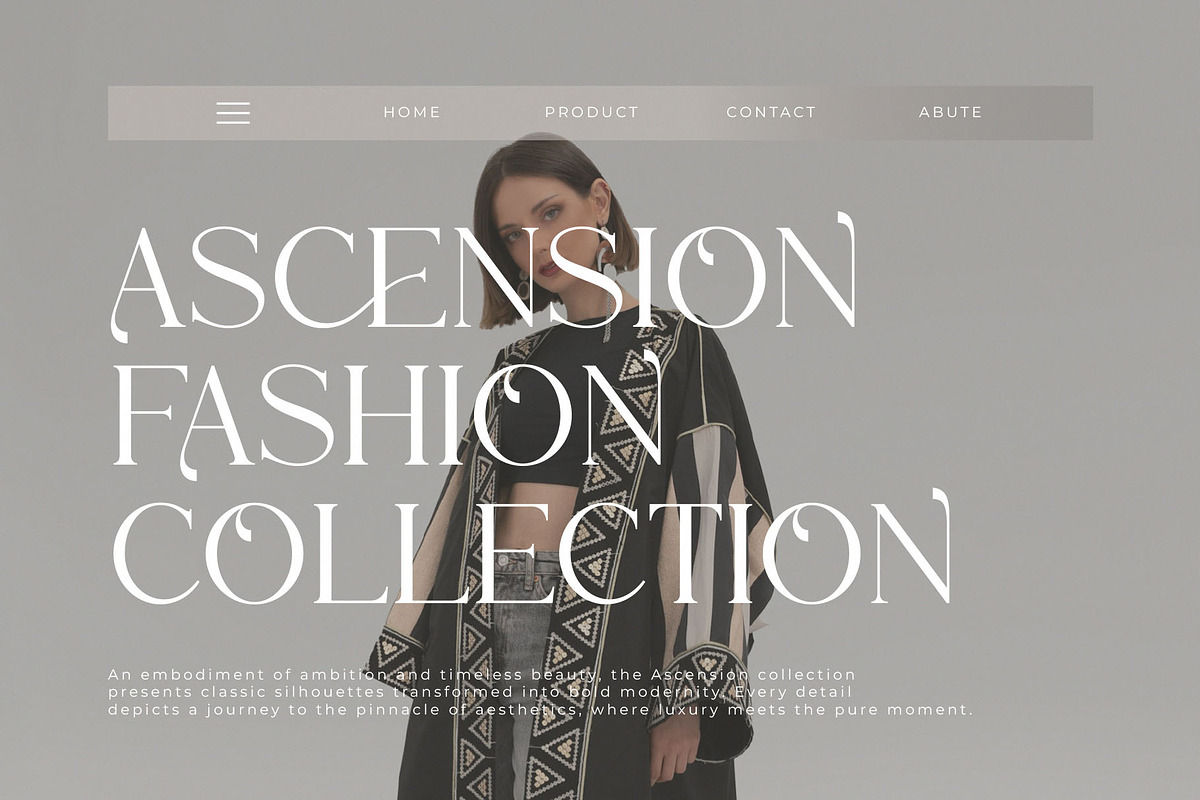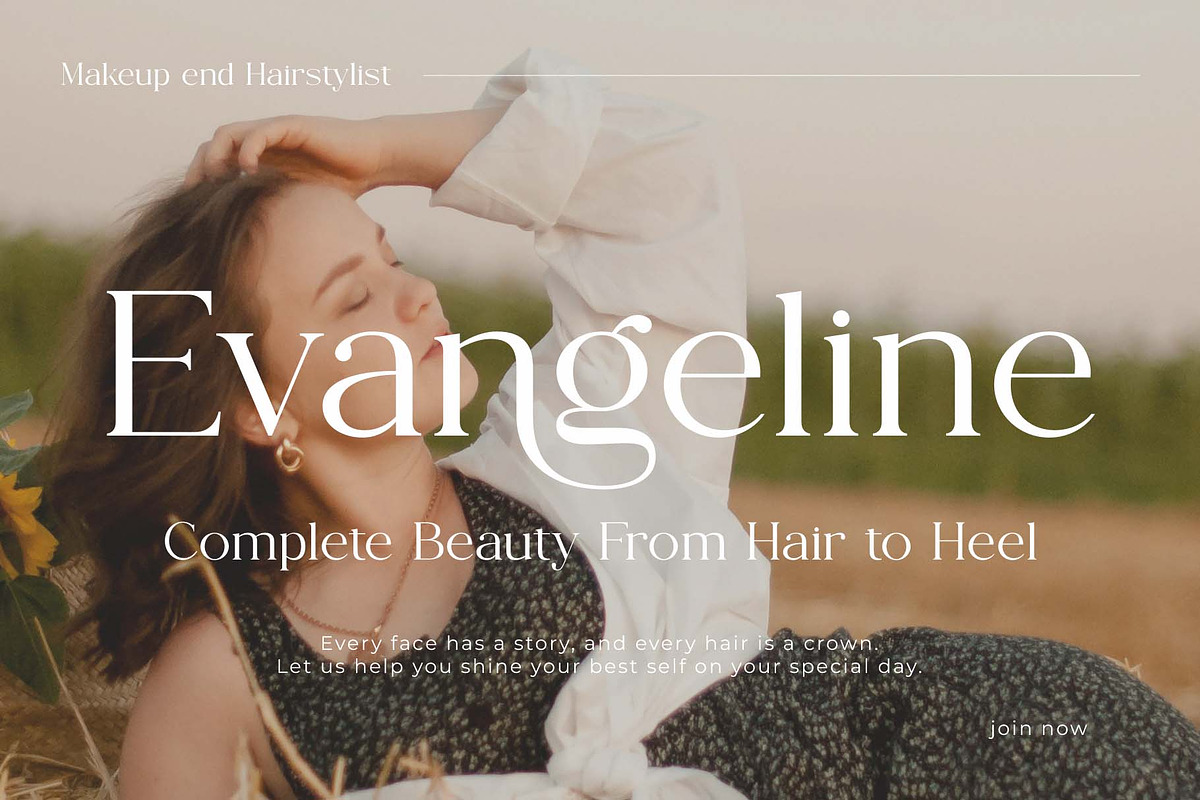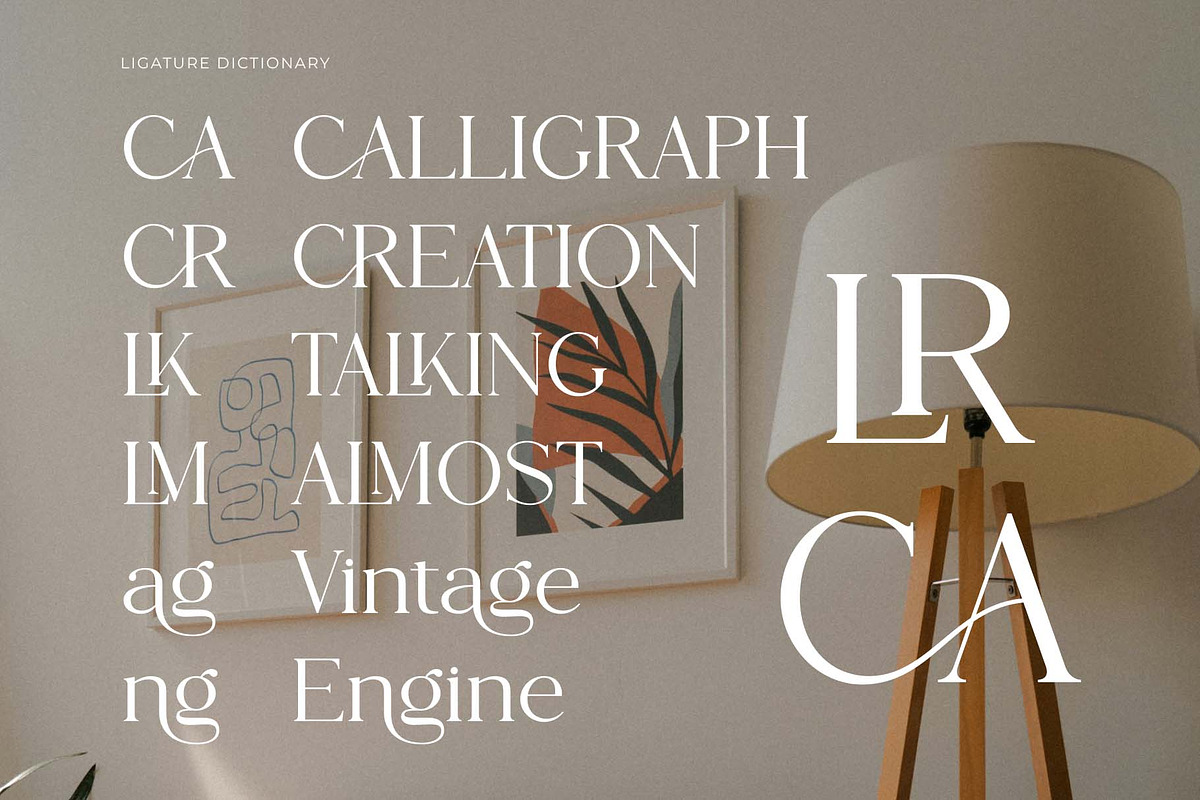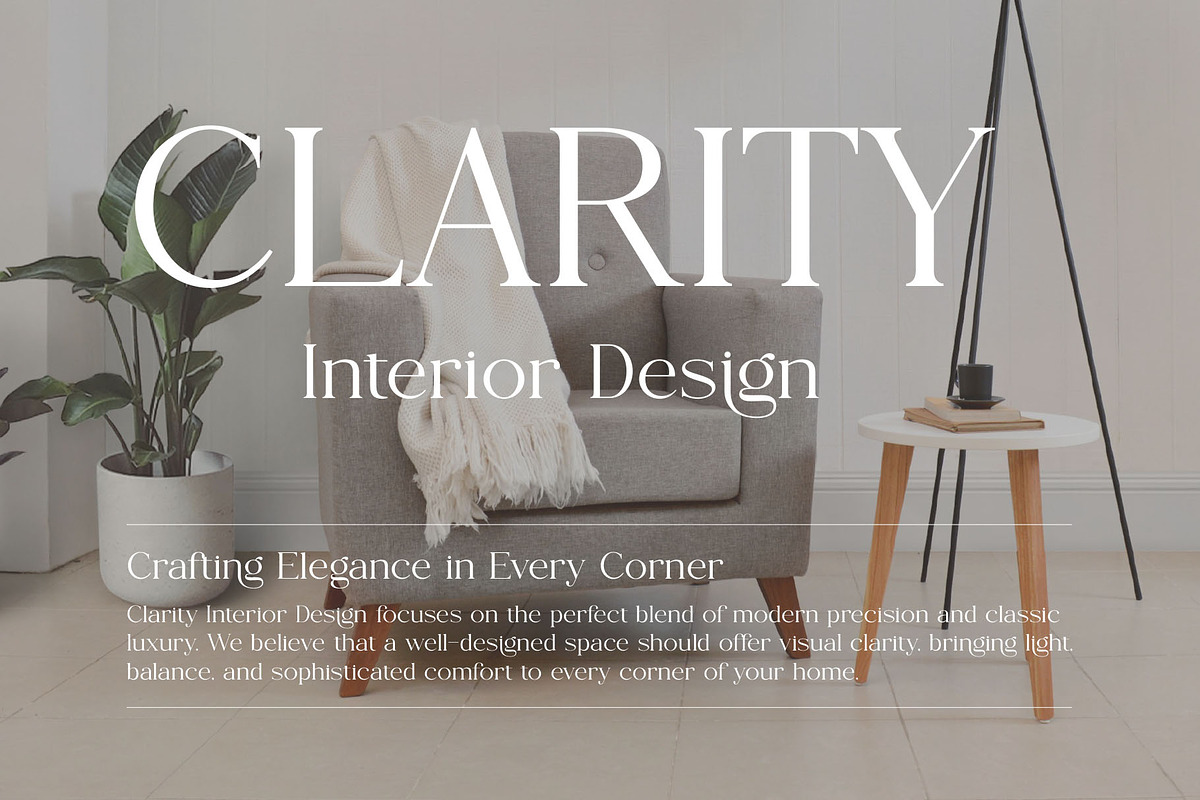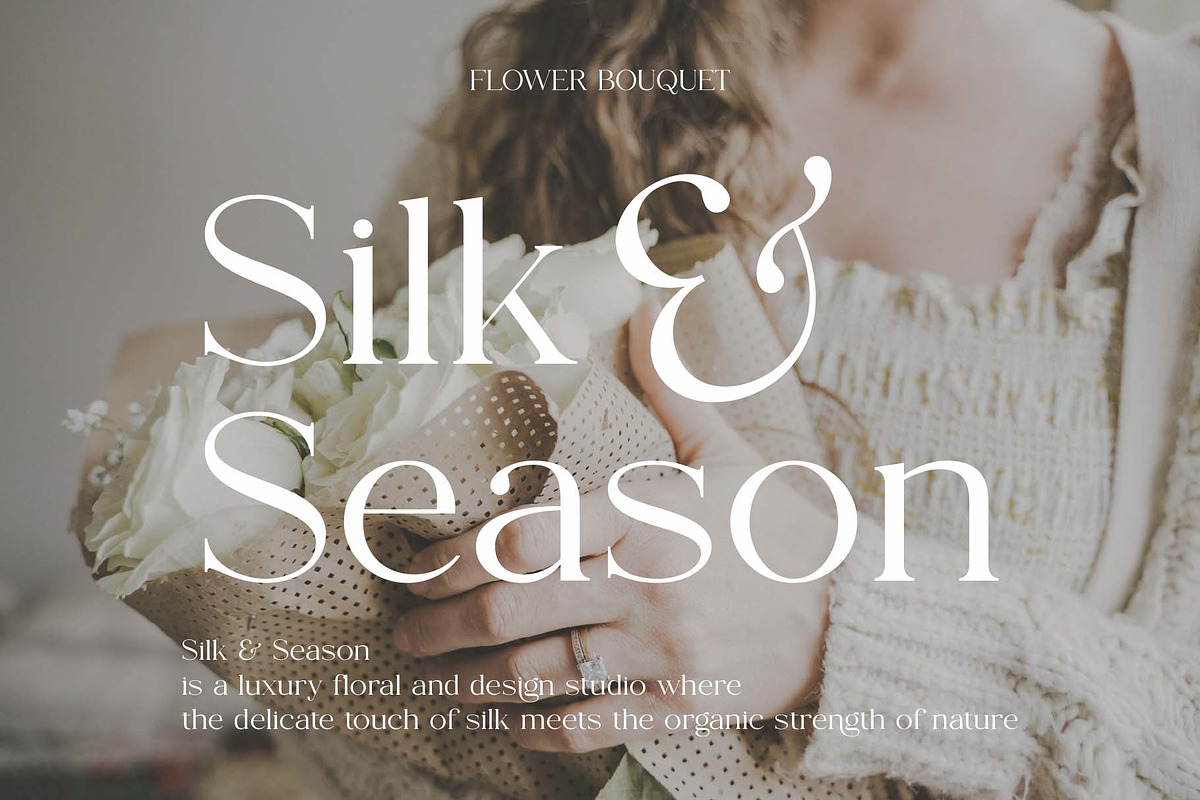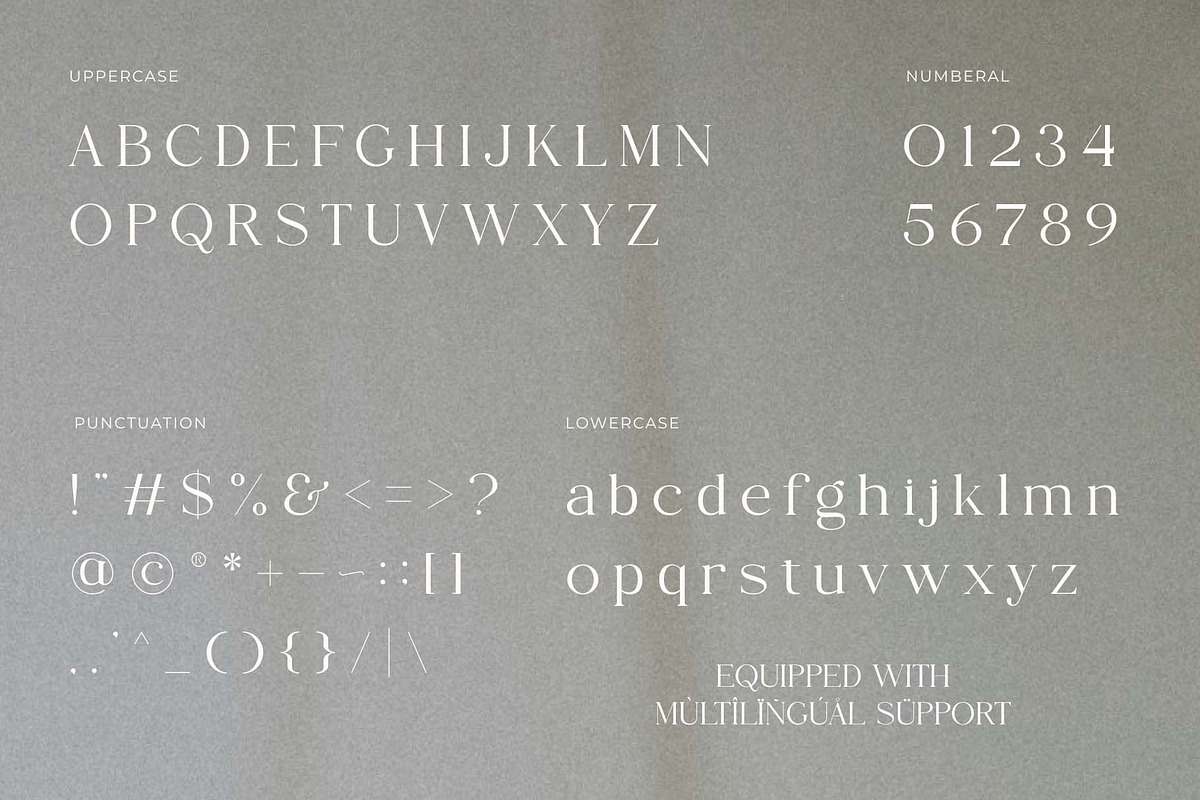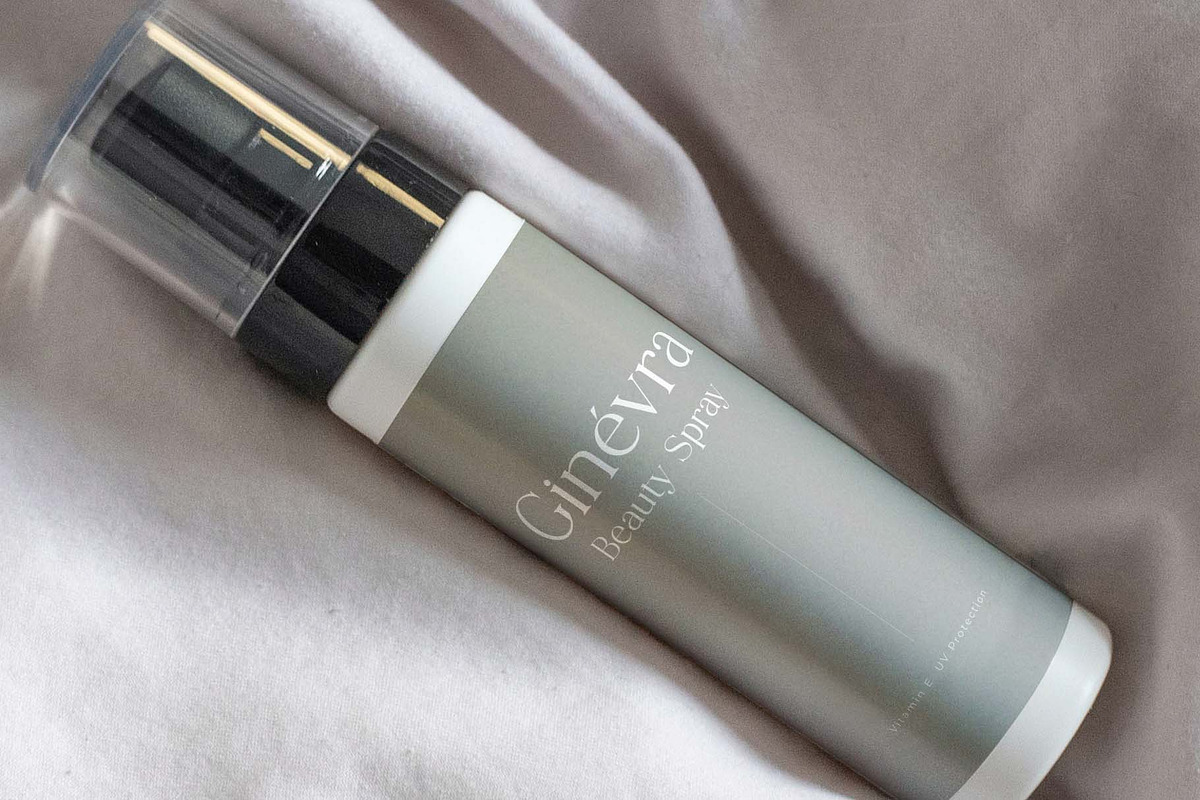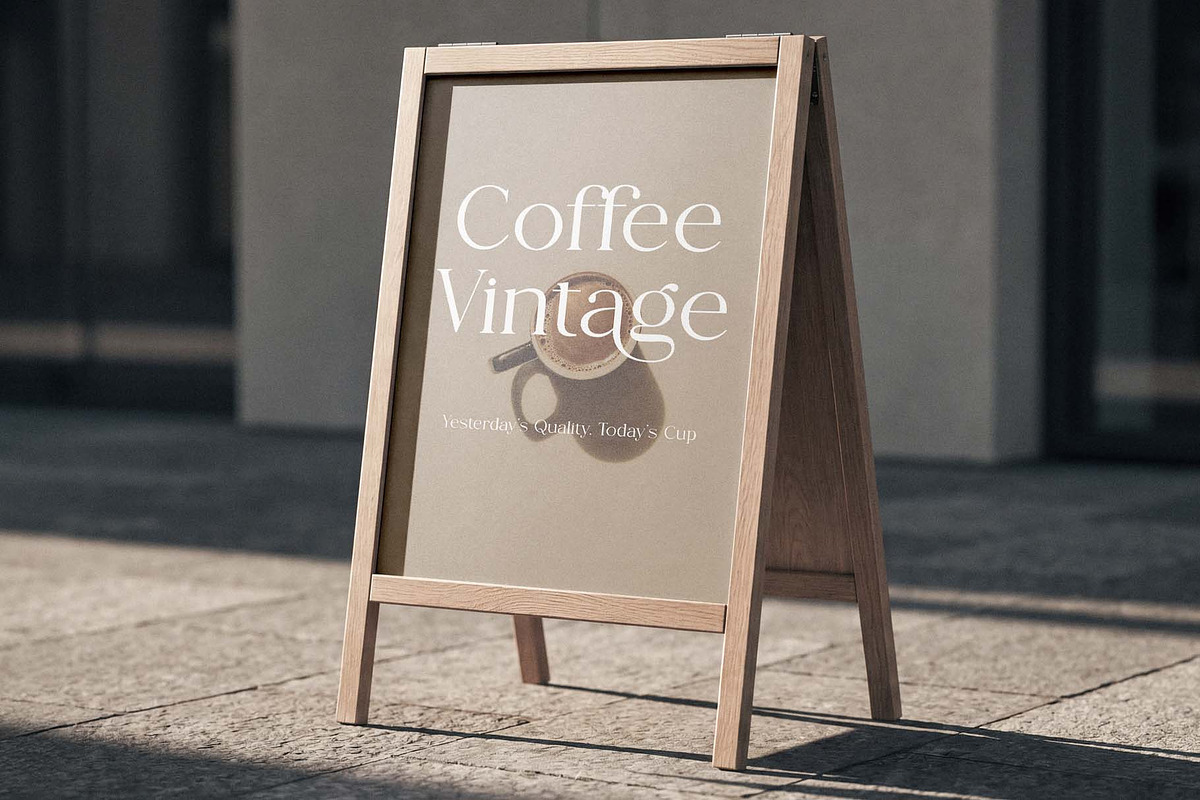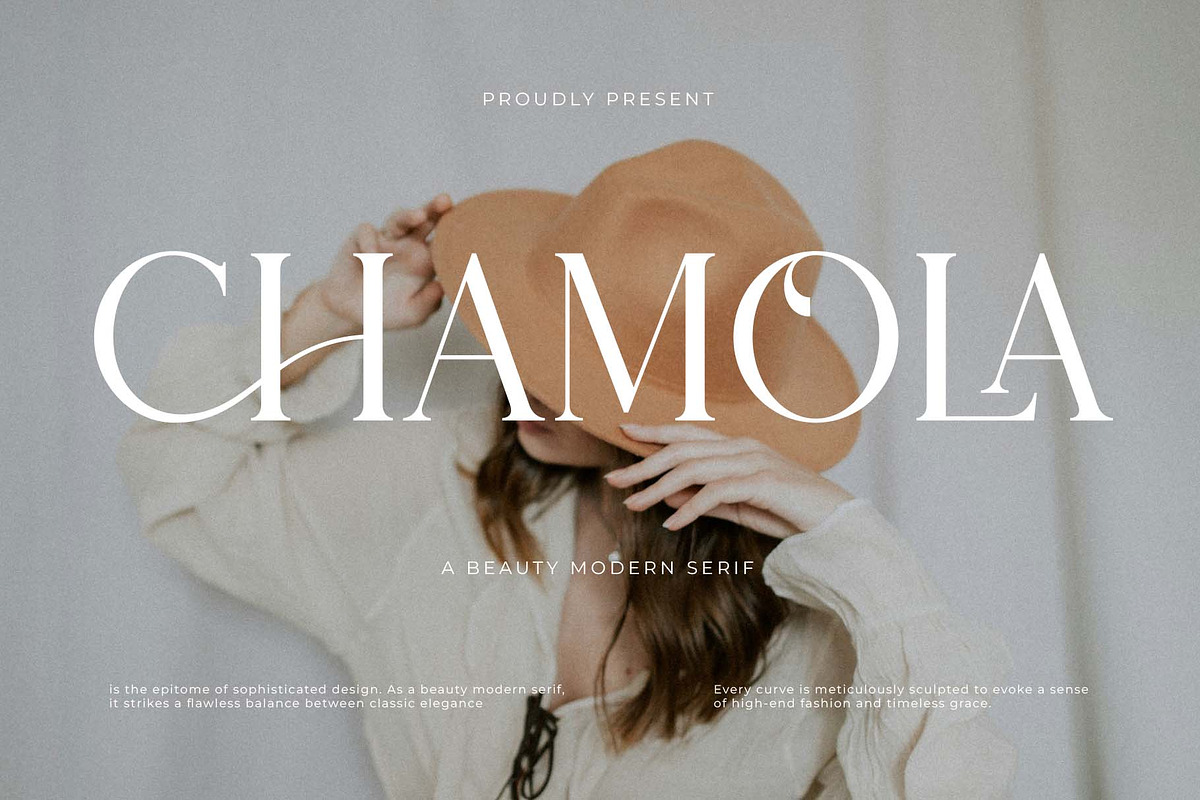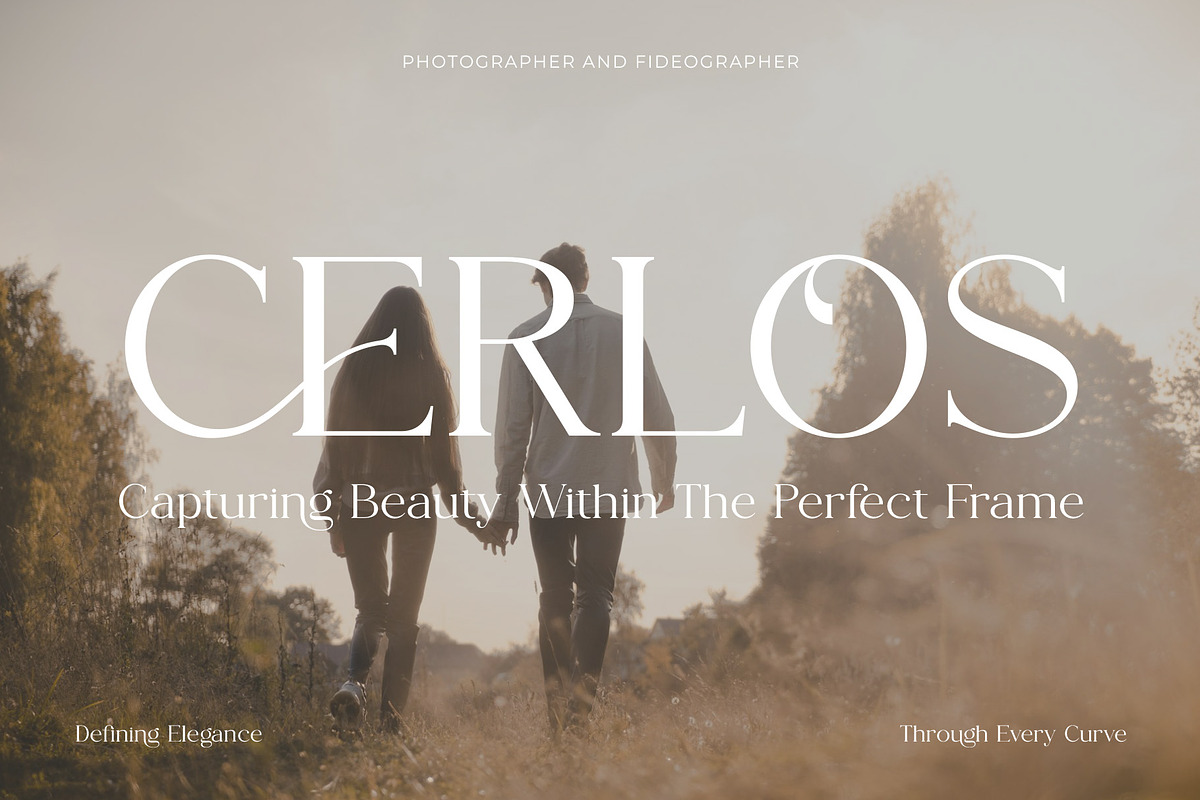
Chamola - A Beauty Modern Serif
Introducing Chamola the elegant, beautiful, and modern Serif. With its modern and minimalist look, Chamola brings a luxurious, classy, and clean style to your projects such as websites, modern logos, brand identities, social media quotes, wedding stationery, magazines, and more!
Chamola features unique and classy capital letters A to Z and also comes with unique alternates and ligatures making Chamola a beautiful font that can be customized for various projects and jobs you want.
Chamola is perfect for: logos, brands, wedding invitations, business cards, greeting cards, posters, magazines, social media, agenda prints, and websites.
FEATURE:
\\- Uppercase and lowercase letters
\\- Multilingual Characters
\\- Numbers & punctuation
\\- ligatures & Alternates